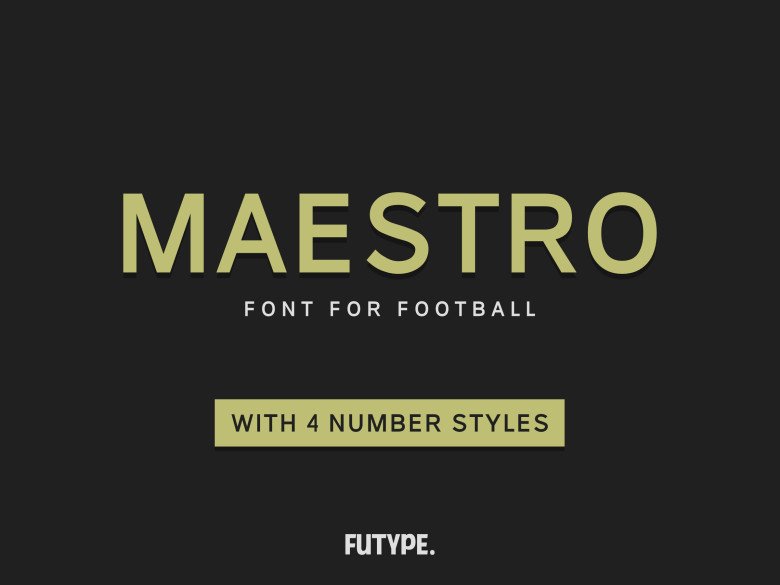
Maestro Font
Maestro font was designed specifically to adorn soccer, football or any other type of sports jerseys. Utilizing its basic sans serif font makes this font extremely flexible in use and suitable for numerous other applications.
Maestro Sans Serif Font